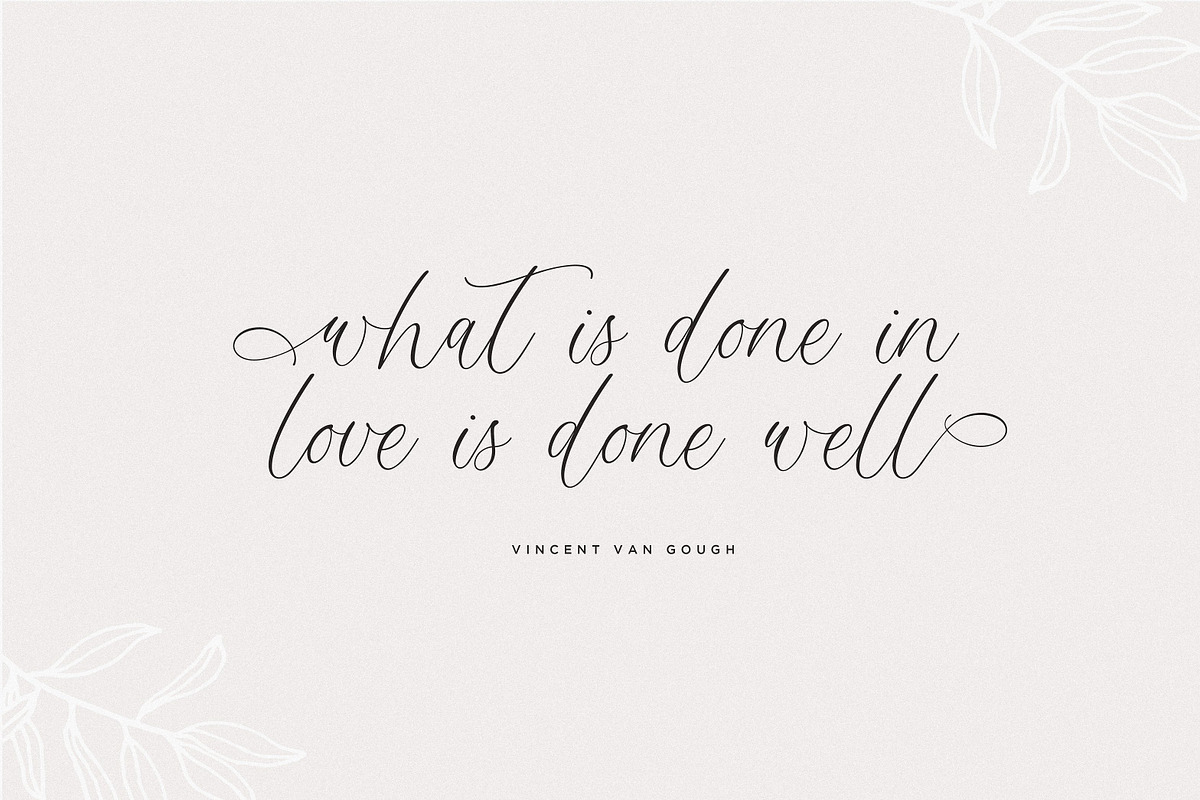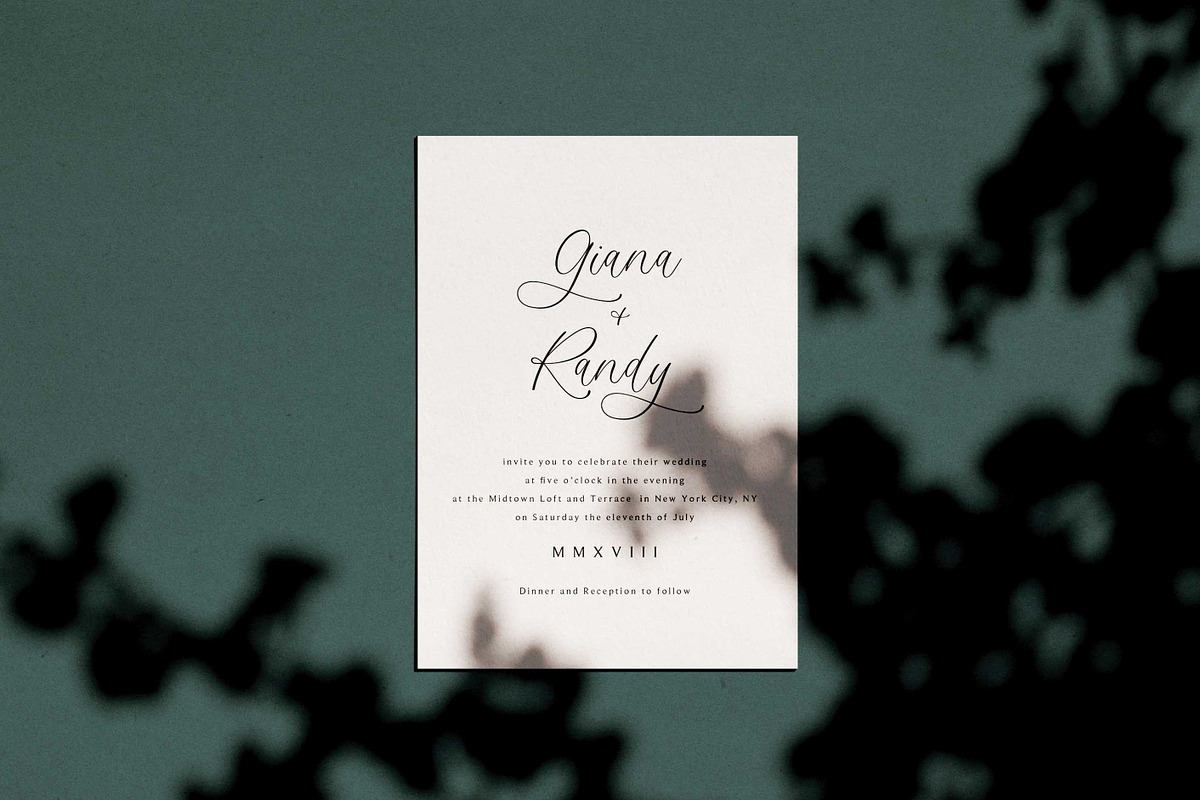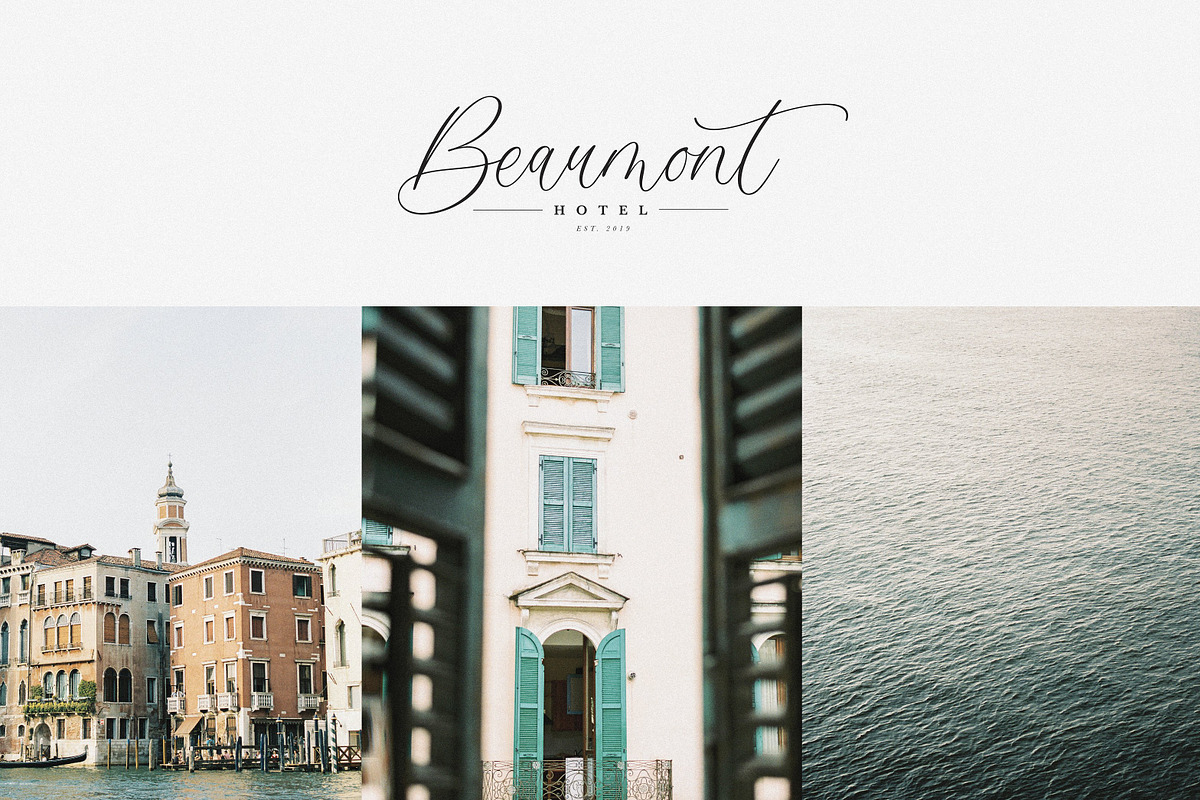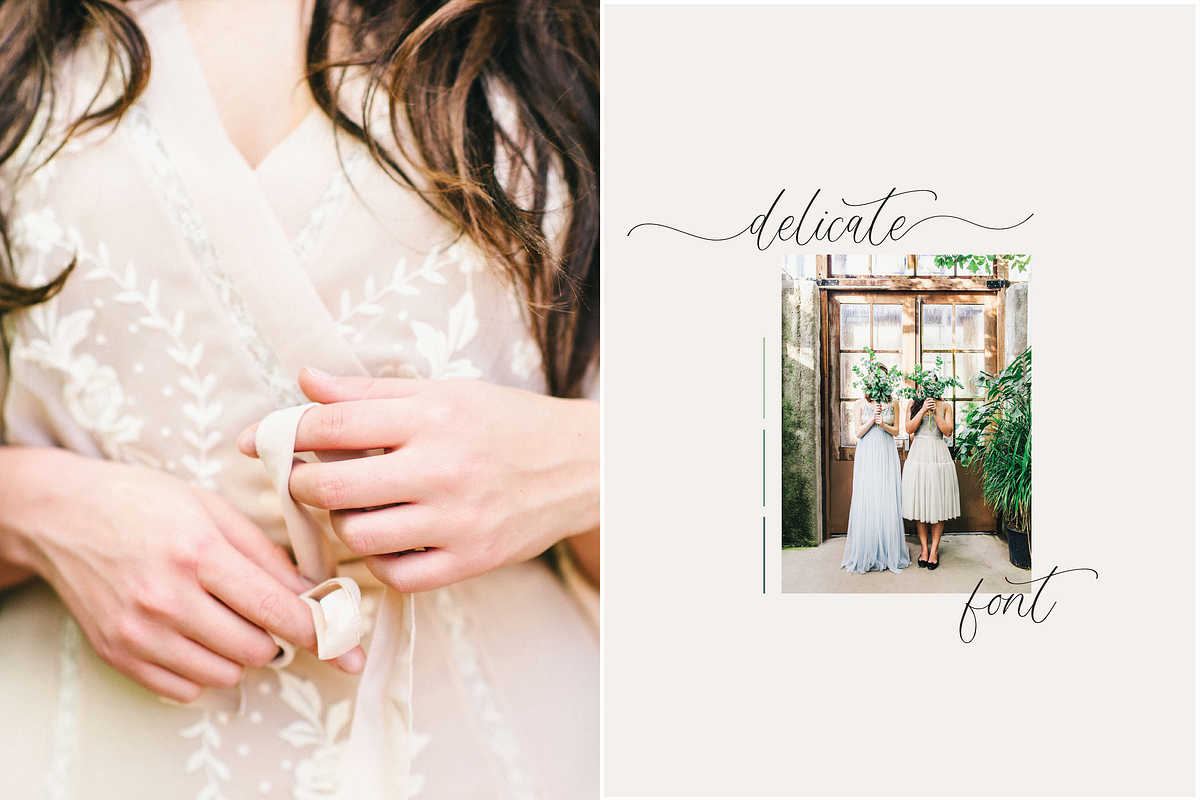
Monterey Script Font
Introducing the elegant new Monterey Script Font!
Monterey Script was built with OpenType features and includes beginning and ending swashes, numbers, punctuation, alternates, ligatures and it also supports other languages :)
Multilingual capabilities are available for this font. Characters include: ÁĂÂÄÀĀÅÃÆČÇÐĎÉĚÊËÈĒĘÍÎÏÌĪįĽŁŇÑÓÔÖÒŐŌØÕŒÞŘŠŤÚÛÜÙŰŪẂŴẄẀÝŶŸỲŽ áăâäàāåãæčçðďéěêëèēęľłňñóôöòőōøõœþřšßťúûüùűūųẃŵẅẁýŷÿỳž